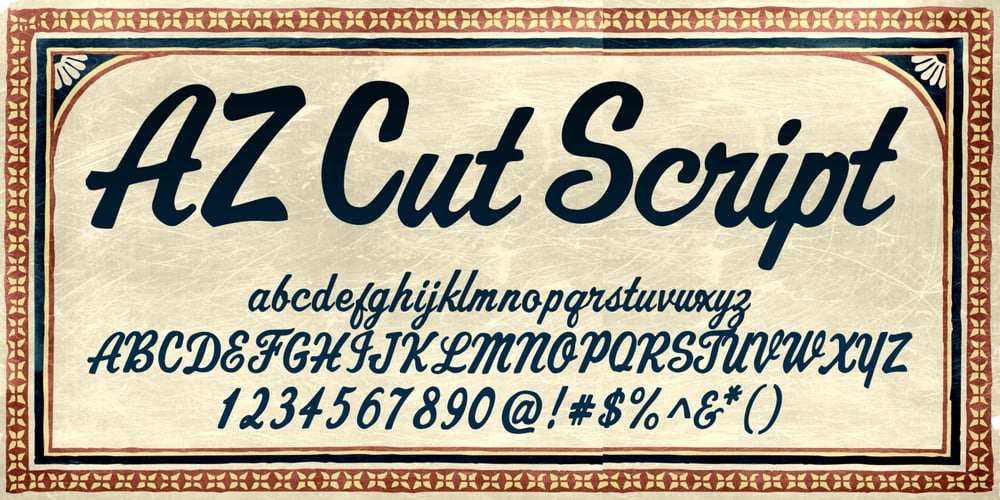
AZ Cut Script Font Family was designed by Andre Zottolo and published by Artist of Design. AZ Cut Script contains 1 styles and family package options. AZ Cut Script utilizes a simple hand-drawn “old look” to the line work which is designed to have a “worn feel” to it. Ideal for use as headline or sub-head text in your design.